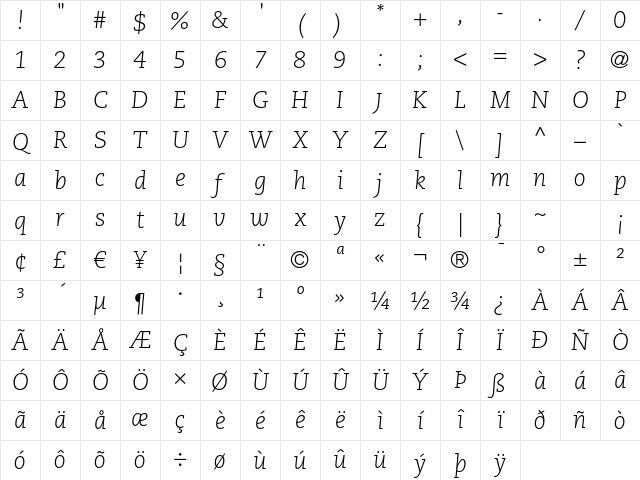
Complete PMN Caecilia LT 46 Light Italic glyph index. Displaying only characters natively supported by PMN Caecilia LT 46 Light Italic font.
PMN Caecilia LT is a composed and adaptable typeface that performs quietly and consistently across a wide range of design contexts. The slanted form adds forward momentum and visual energy. Its slender proportions lend an understated elegance to any composition.